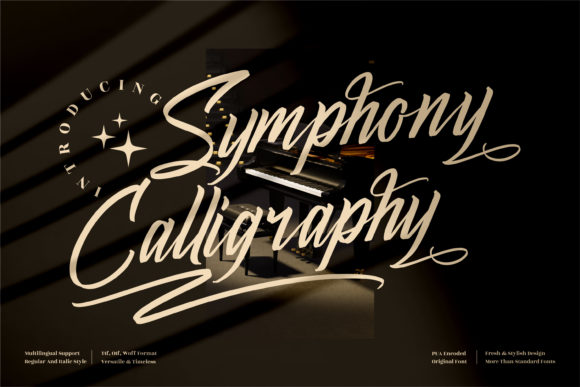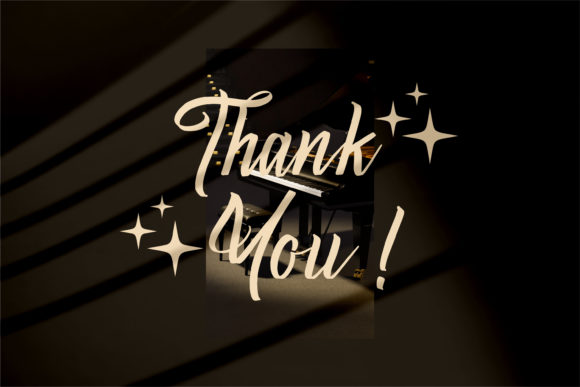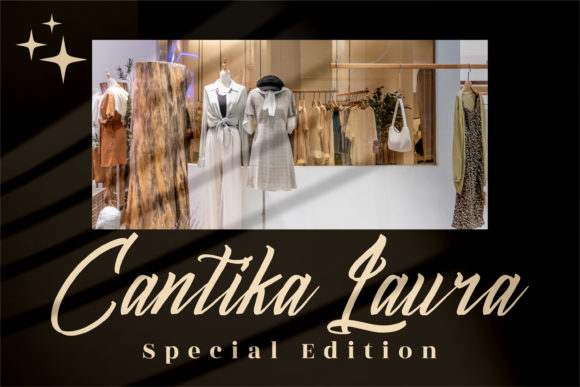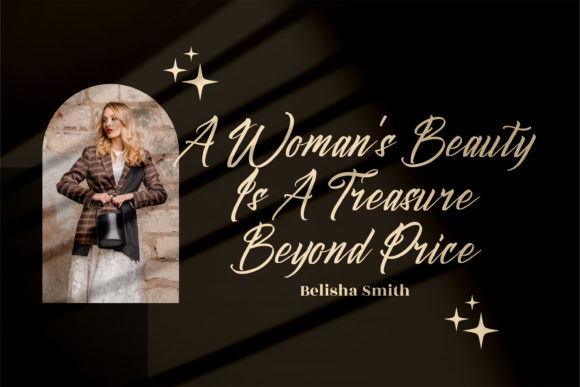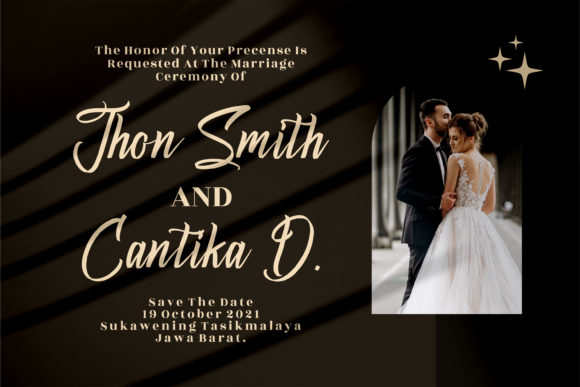
About Symphony Calligraphy Font
Symphony Calligraphy is a lovely and delicate script font that exudes elegance and class. This font was particularly crafted for those who need a beautiful and refreshing look to their designs.